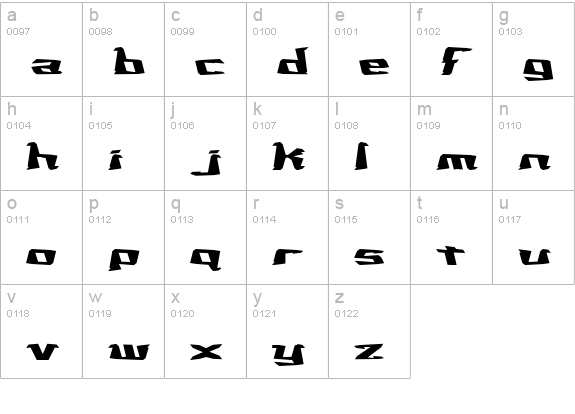
Not Quite Right BRK Font Details
Not Quite Right BRK font is a quirky and unique typeface that adds a touch of whimsy to any design project. With its slightly off-kilter letterforms and playful style, this font is perfect for adding a fun and casual vibe to your designs. Whether you're creating invitations, posters, or social media graphics, Not Quite Right BRK font is sure to make your text stand out. Best of all, Not Quite Right BRK font is available for free download at FontsMarket.com. Simply head over to the website to grab this delightful font and start incorporating it into your designs today. Let your creativity shine with Not Quite Right BRK font!